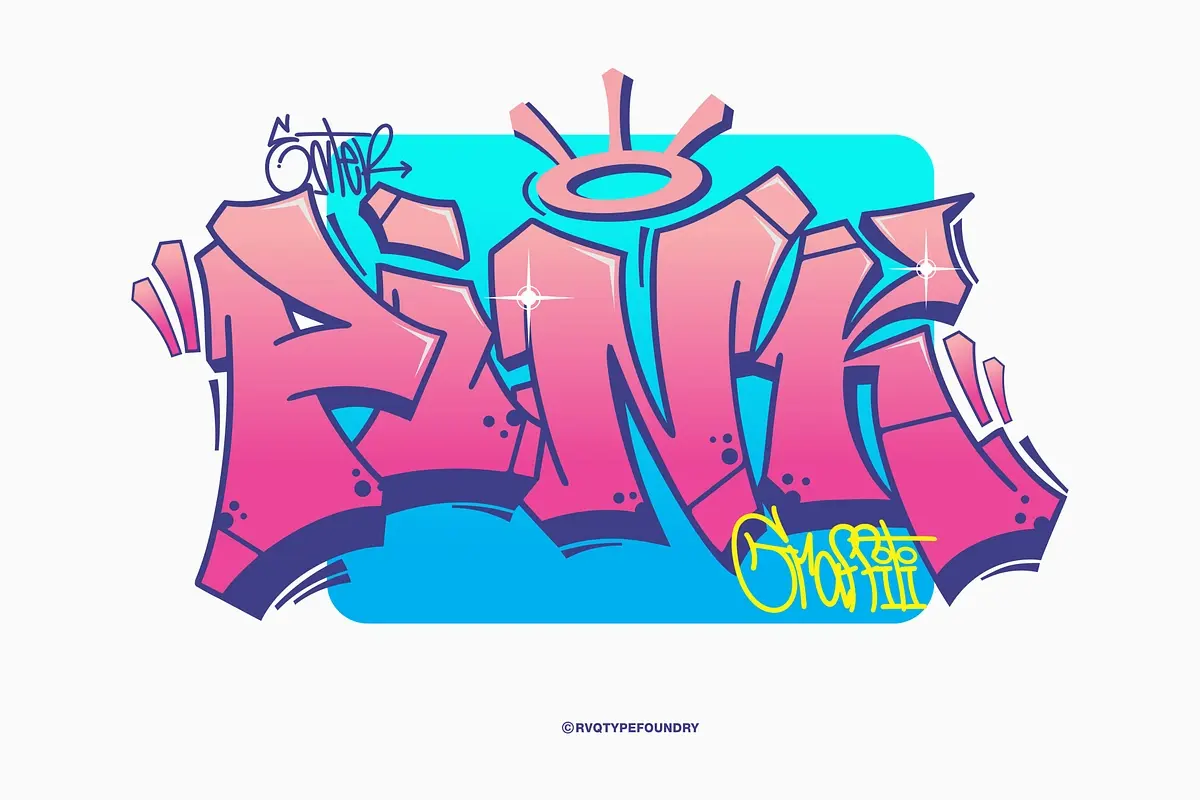
Please note, to use this font for commercial purposes, you must purchase the full version. Enter Graffiti Compilation is a bold and dynamic font collection inspired by street art and graffiti culture. With its vibrant, urban style, this compilation is perfect for creating edgy logos, posters, event flyers, and branding that needs a raw, artistic touch. Whether you're working on a music project, a city-inspired brand, or a rebellious marketing campaign, Enter Graffiti Compilation adds an authentic, street-style vibe to your designs. Test it out and enjoy free download access for personal use. Experience the bold energy of Enter Graffiti Compilation Free Download before purchasing the commercial license. Bring the bold and artistic spirit of graffiti to your designs with Enter Graffiti.